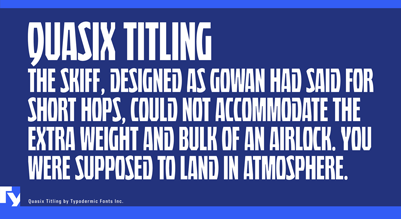
Quasix is a compact, industrial headliner. Like the inside of a machine, it appears functional, even though the specific purpose of each individual part may not be understood by the viewer. Often, a designer needs to convey the idea of engineered devices without resorting to a stereotypical techno typeface or something more concrete like gears and bolts. Unlike many display fonts in the industrial category, Quasix isn't tied to any particular era, making it suitable for retro, contemporary or futuristic themes. If you'd like lowercase letter, check out the regular Quasix font. http://typodermicfonts.com/quasix This font includes a license that allows free commercial use: sometimes referred to as a desktop license. This allows you to install the font on a computer and use it to create posters, web graphics, game graphics, t-shirts, videos, signs, logos and more. Read the license agreement for details. If you'd like to embed this font in an app, ebook, on the web or anything that's not covered by the desktop license agreement, visit the link below. You'll find distributors who offer different types of licenses or you can contact me for help. http://typodermicfonts.com/quasix-titling |